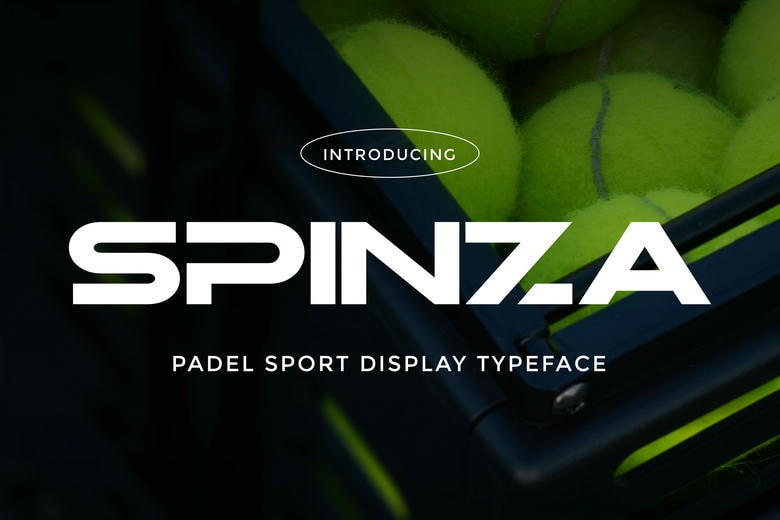
Spinza Font
Spinza is a dynamic and modern sport display typeface which is designed to be fast, powerful, and accurate. Spinza gives every design an energetic effect due to its great geometricity, sharp angles and the bold athletic appearance. Ideal padel, tennis, sports branding, team identity, posters, score boards and high intensity promotional artwork.
Spinza Display Font